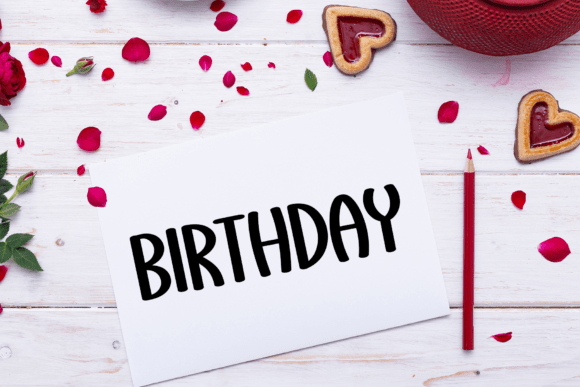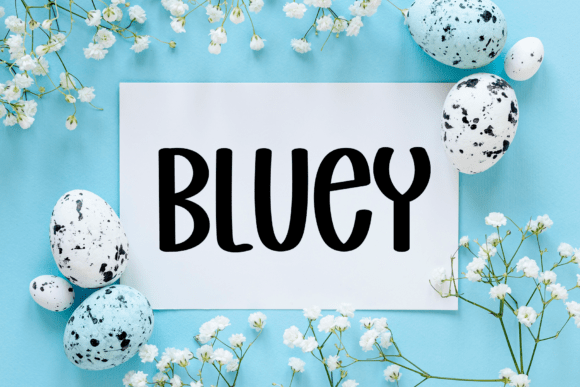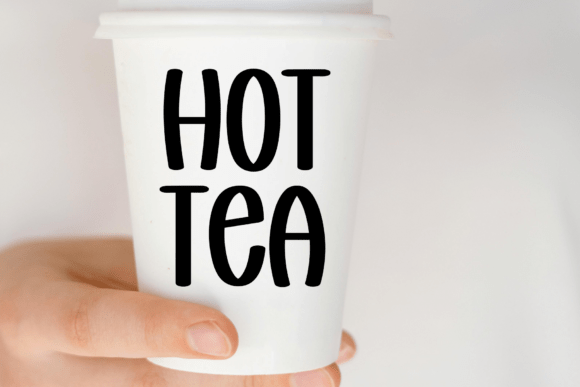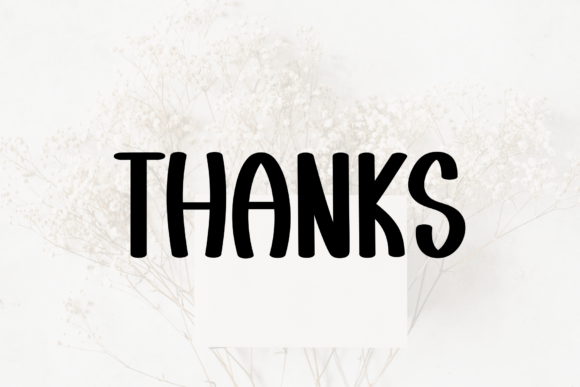
Add a Touch of Timeless Warmth with Classic Notes Font
In the world of typography, few fonts manage to strike a balance between traditional structure and a friendly, approachable vibe. Classic Notes, a special display font, achieves this delicate balance with ease. Its unique blend of bold, rounded terminals and sturdy weight makes it an excellent choice for designers and crafters looking to add a touch of timeless warmth to their projects.
The Characteristics of Classic Notes
Classic Notes is a display font that exudes a sense of nostalgia and warmth. Its bold, rounded terminals give it a sturdy and dependable feel, while its hand-finished soul adds a touch of personality and whimsy. The font’s design is characterized by:
- Bold, rounded terminals: Giving the font a sturdy and dependable feel.
- Sturdy weight: Providing excellent legibility, even at smaller sizes.
- Hand-finished soul: Adding a touch of personality and whimsy to the font.
Uses for Classic Notes
Classic Notes is an exceptional selection for a variety of design projects, including:
- Bakery packaging: Add a touch of warmth and personality to your bakery packaging with Classic Notes. The font’s bold and rounded terminals make it perfect for labeling sweet treats and baked goods.
- Cozy cafĂ© signage: Create a welcoming atmosphere in your cafĂ© with Classic Notes. The font’s sturdy weight and friendly vibe make it ideal for menus, signs, and other display materials.
- Children’s book titles: Classic Notes is a great choice for children’s book titles, adding a touch of whimsy and personality to your book covers and interior design.
- Artisanal product labels: If you’re looking to create labels for artisanal products, such as handmade crafts or specialty foods, Classic Notes is an excellent choice. The font’s traditional structure and friendly vibe make it perfect for conveying a sense of quality and craftsmanship.
Why Choose Classic Notes?
So why choose Classic Notes for your design projects? Here are just a few reasons:
- Excellent legibility: Classic Notes provides excellent legibility, even at smaller sizes, making it perfect for a variety of design applications.
- Timeless warmth: The font’s traditional structure and friendly vibe give it a timeless warmth that will never go out of style.
- Versatility: Classic Notes can be used for a wide range of design projects, from bakery packaging to children’s book titles.
- Easy to read: The font’s sturdy weight and bold terminals make it easy to read, even for those with visual impairments.
Tips for Using Classic Notes
Here are a few tips for using Classic Notes in your design projects:
- Use it for headlines: Classic Notes is perfect for headlines and titles, where its bold and rounded terminals can really shine.
- Pair it with a sans-serif font: For body text, consider pairing Classic Notes with a sans-serif font to create a nice contrast and add visual interest.
- Experiment with colors: Classic Notes looks great in a variety of colors, from rich and bold to soft and pastel.
- Don’t be afraid to get creative: Classic Notes is a versatile font that can be used in a wide range of design applications. Don’t be afraid to experiment and try new things!
Classic Notes is a special display font that adds a touch of timeless warmth to any design project. Its unique blend of traditional structure and friendly vibe makes it perfect for a wide range of applications, from bakery packaging to children’s book titles. With its excellent legibility, versatility, and ease of use, Classic Notes is a great choice for designers and crafters looking to add a touch of personality and whimsy to their work.